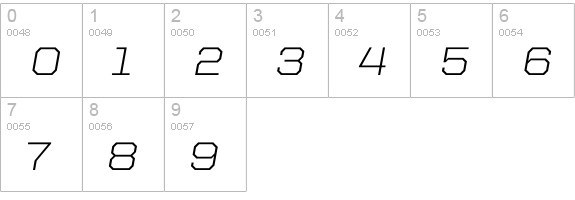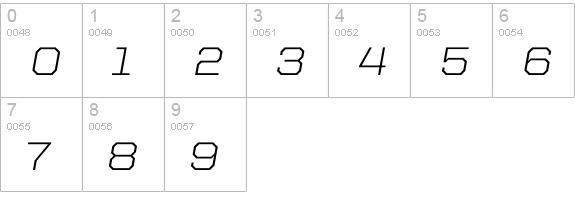
United Italic SemiExt Light Font Details
United Italic SemiExt Light is a refined, elegant, italic variant in the United typeface family \xE2\x80\x94 well suited to elegant body text, refined sub-headings, and luxury branding.
United Italic SemiExt Light is a stunning font that exudes elegance and sophistication. Its slim and elongated letterforms create a sense of grace and fluidity, making it the perfect choice for projects that require a touch of refinement. This font strikes a balance between modernity and classicism, making it versatile and suitable for a wide range of design applications. With its delicate strokes and well-defined curves, United Italic SemiExt Light brings a sense of harmony and balance to any project it is used in. Whether it is for a logo, a website, or a print design, this font will effortlessly elevate the overall aesthetic and convey a sense of professionalism. One of the most appealing aspects of United Italic SemiExt Light is that it is freely available to download at FontsMarket.com. This means that designers and creatives can easily access this exceptional font without any cost, making it an excellent choice for those who are budget-conscious. United Italic SemiExt Light is not only visually appealing but also highly legible, ensuring that your message is conveyed clearly and effectively. Its clean and crisp lines make it easy to read even at small sizes, making it suitable for both headlines and body text. Whether you are working on a branding project, a magazine layout, or a wedding invitation, United Italic SemiExt Light is a font that will add a touch of elegance and sophistication to your designs. Its versatility, legibility, and free availability make it an invaluable asset for designers looking to create stunning visuals without compromising on quality. Download United Italic SemiExt Light from FontsMarket.com today and experience the beauty and versatility of this exceptional font.